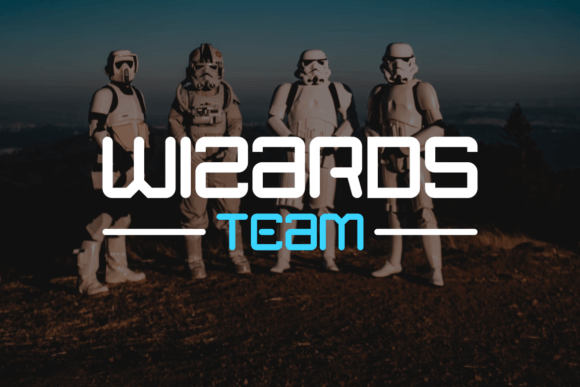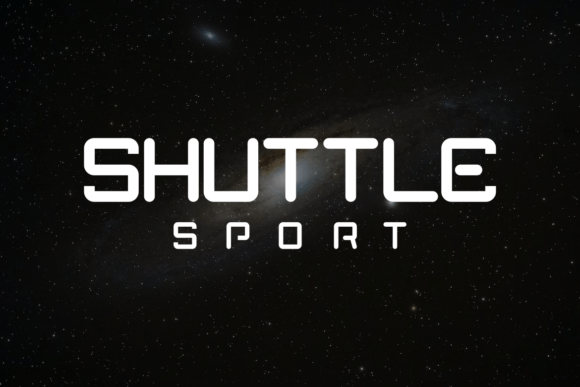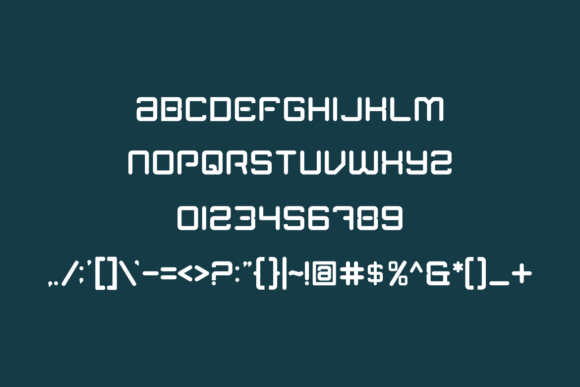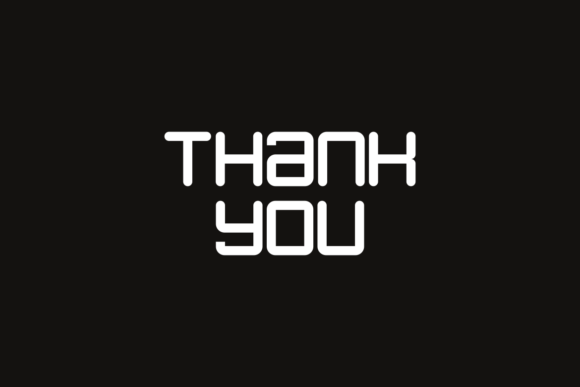
Introduction to Over Matrix Font
As a designer, have you ever found yourself scrolling through a sleek, futuristic website or social media post, captivated by the bold, modern typography? That’s exactly the kind of creative spark that the Over Matrix Font is designed to ignite. With its unique blend of techno and sports styles, this sans-serif font is perfect for making a statement in your next design project.
Whether you’re working on a product logo, poster, or website, the Over Matrix Font is an invaluable resource for designers looking to add a touch of high-tech sophistication to their work. And the best part? It’s available for free download, making it an accessible design tool for creative projects of all sizes. From high-quality logos to eye-catching headlines, the possibilities are endless with this versatile font.
Unlock the Power of Over Matrix Font
Key Features of Over Matrix Font
- Unique, geometric design that adds a touch of sophistication to any creative project.
- High-resolution, scalable font with a resolution of 300 DPI, ensuring crisp and clear text output.
- Features a transparent background, allowing for easy layering and composition in design projects.
- Designed in a range of sizes, from 8pt to 72pt, to accommodate various design needs and applications.
- Perfect for use in digital design, print materials, and web projects, thanks to its versatility and high quality.
Honest Review: Over Matrix Font
I recently stumbled upon the Over Matrix Font, a free download that I was excited to dive into for my next creative project. At first glance, I was impressed by the sleek and modern design of this font. It’s definitely a great addition to any design resource collection.
Here are some of the things that I think work well with the Over Matrix Font:
- ✨ High-quality design that’s perfect for modern designs
- ✨ Transparent background that makes it easy to use on any background
- ✨ Versatile font that works well for titles, headings, and body text
However, there are a few limitations that I want to mention:
- ⚠️ Limited number of styles available, which might not be suitable for all projects
- ⚠️ Some users may find the font a bit too futuristic or sci-fi for their taste
Overall, I think the Over Matrix Font is a solid choice for designers looking for a modern and sleek font. While it may have its limitations, it’s definitely a great resource to have in your collection. I would recommend giving it a try for your next creative project.
Over Matrix Font
The Over Matrix Font is a versatile and modern design resource ideal for various creative projects. This high-quality font can be easily downloaded and integrated into your design workflow.
Tips for Getting the Most Out of Over Matrix Font
Experiment with different font sizes, colors, and styles to achieve a unique design look. Use the font in combination with other design elements to create a visually appealing composition.
The Over Matrix Font is suitable for various design projects, including:
- UI/UX design
Alternatives to Over Matrix Font
Avenir is a sans-serif font that is perfect for designers working on a creative project that requires a clean and modern design. It’s a great alternative to Over Matrix Font when you need a high-quality font with a transparent background. Avenir is ideal for designing logos, brochures, and other marketing materials.
Comparison to Over Matrix Font: Avenir is more geometric and has a more futuristic feel compared to Over Matrix Font’s industrial look. It’s also more versatile and can be used for a wide range of design projects.
Montserrat is a sans-serif font that is inspired by the urban typography of Buenos Aires. It’s a great alternative to Over Matrix Font when you need a font with a high level of detail and a modern feel. Montserrat is ideal for designing logos, signage, and other creative projects.
Comparison to Over Matrix Font: Montserrat has a more humanist feel compared to Over Matrix Font’s industrial look. It’s also more versatile and can be used for a wide range of design projects, from logos to body text.